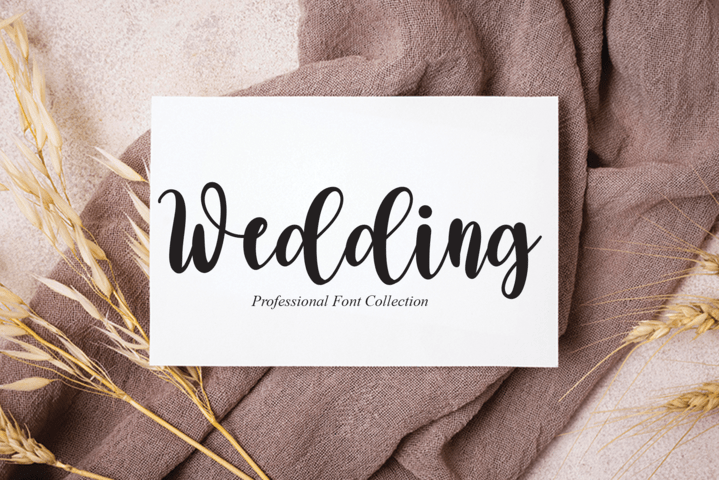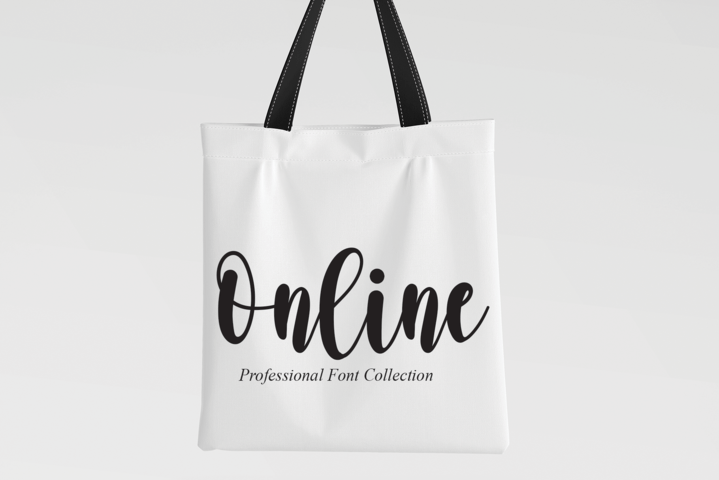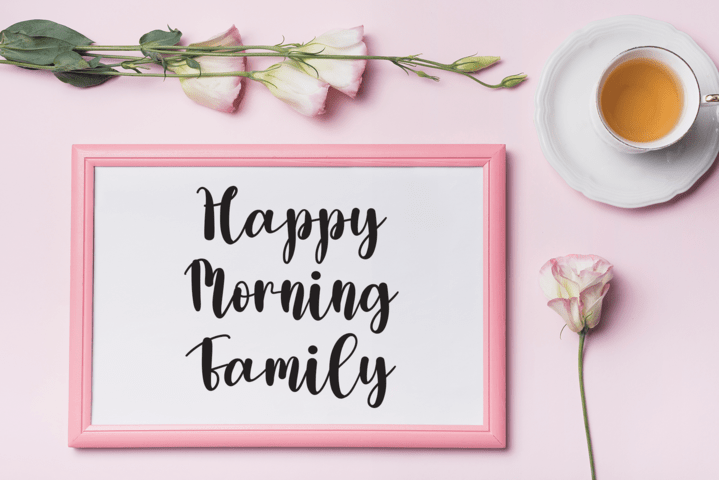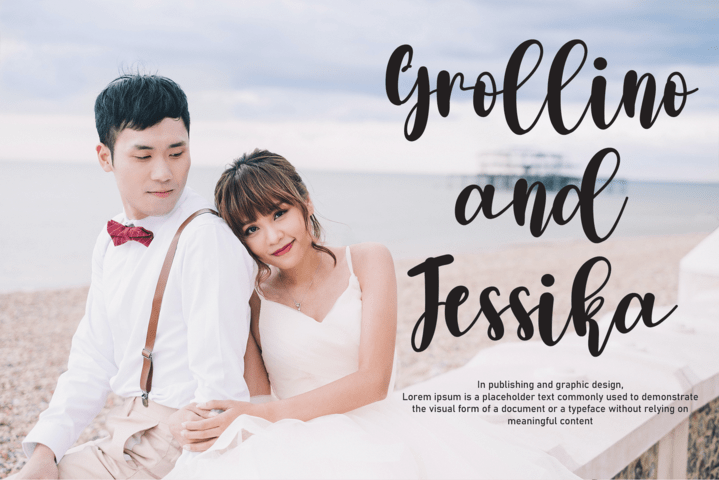
Melonita Font
Melonita Script Font
It’s a thin lettered and graceful script font. Fall for its ravishing style and use it to create gorgeous wedding invitations, beautiful stationary art, eye-catching social media posts, and much more!